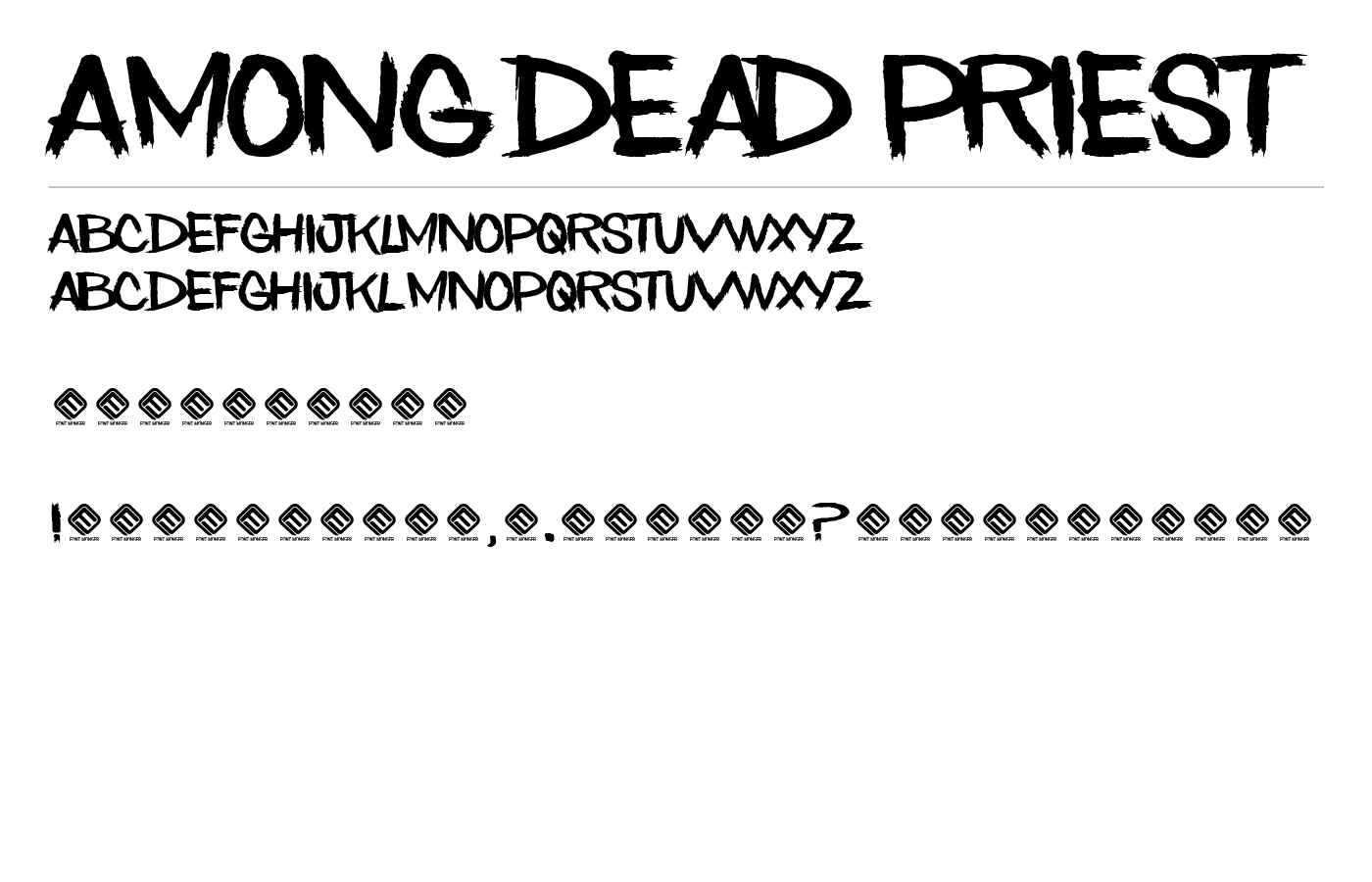
Among Dead Priest is a bold, rough-edged sans serif font with a hand-painted, brushstroke style that gives it a raw and expressive personality. Its uneven strokes and distressed texture evoke a rebellious, edgy feel, making it ideal for designs that seek to capture a gritty, urban, or alternative vibe. This font works best for eye-catching headlines, posters, and branding where impact and attitude are key.
Among Dead Priest Font
About Among Dead Priest Font